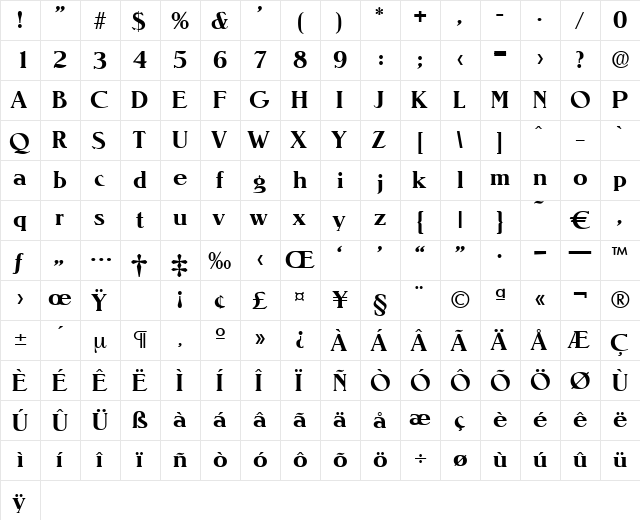
Nevada-DemiBold Regular
Design Context for Nevada-DemiBold Typeface
Nevada-DemiBold is a composed and adaptable typeface that performs quietly and consistently across a wide range of design contexts. The heavy weight commands attention and anchors typographic hierarchies.